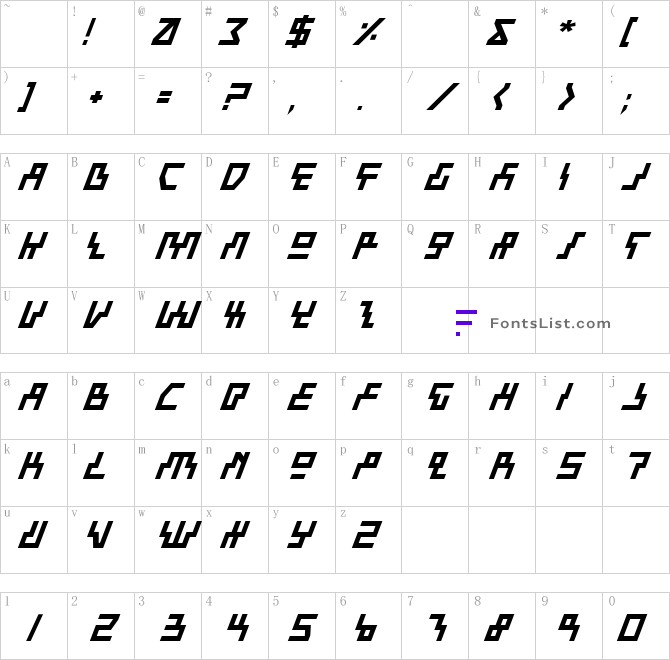
- Font Name:Beam Rider Bold Italic
Beam-Rider-Bold-Italic.ttf is a very beautiful artistic font, Beam-Rider-Bold-Italic.ttf is widely used in the design and printing of various books and pictures,Beam-Rider-Bold-Italic.ttf has a strong visual impact,Beam-Rider-Bold-Italic.ttf is a commonly used font in newspapers, magazines and books, and is used in posters, e-commerce Poster design, store design, logo design, font design and other fields.Beam-Rider-Bold-Italic.